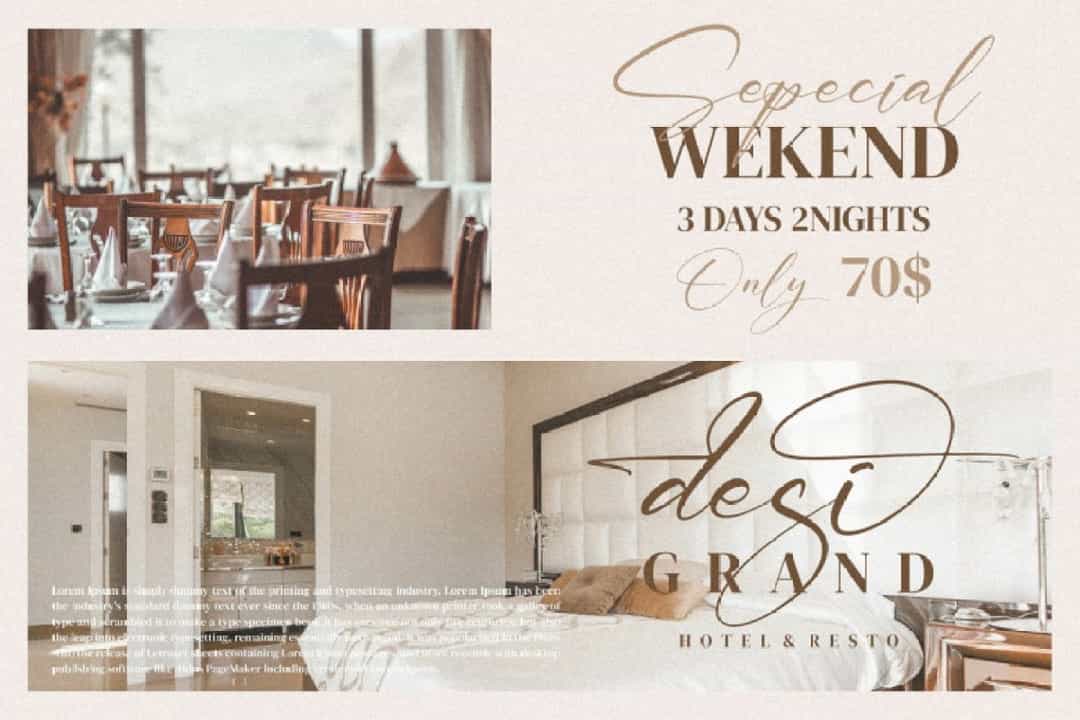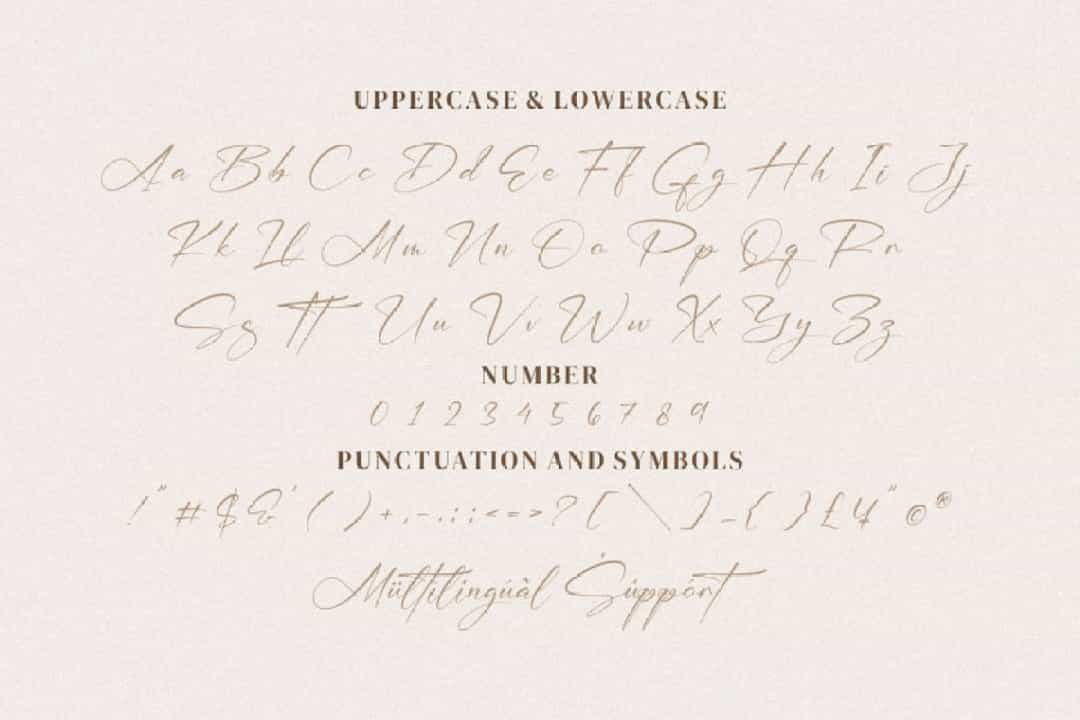
William Narasi – Calligraphy Font from Integritype Studio is an elegant script font suitable for any project requiring calligraphic style text, including logos, branding projects design, homeware packaging for products (mugs and posters), clothing bags, t-shirts containing quotes, phrases as well as posters with posters on them; name cards, book covers greeting cards invitation cards labels watermarks photography special events special projects etc requiring distinctive style text.